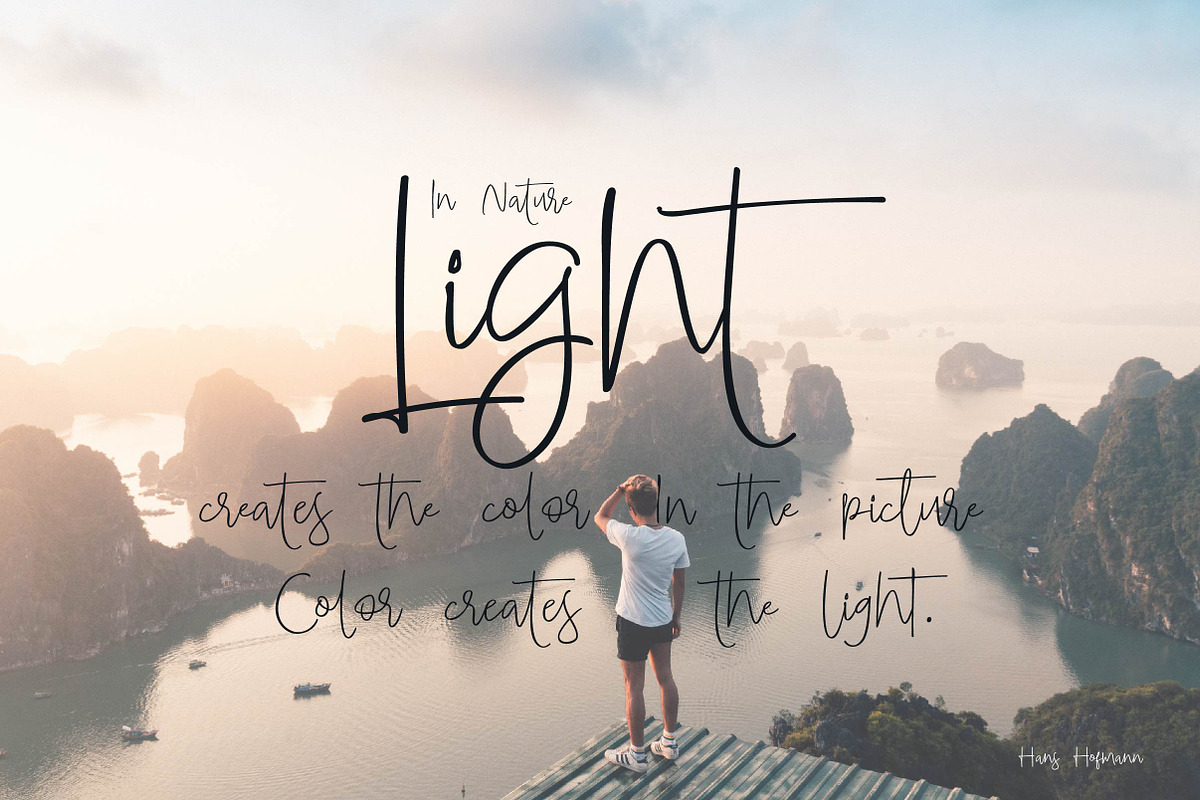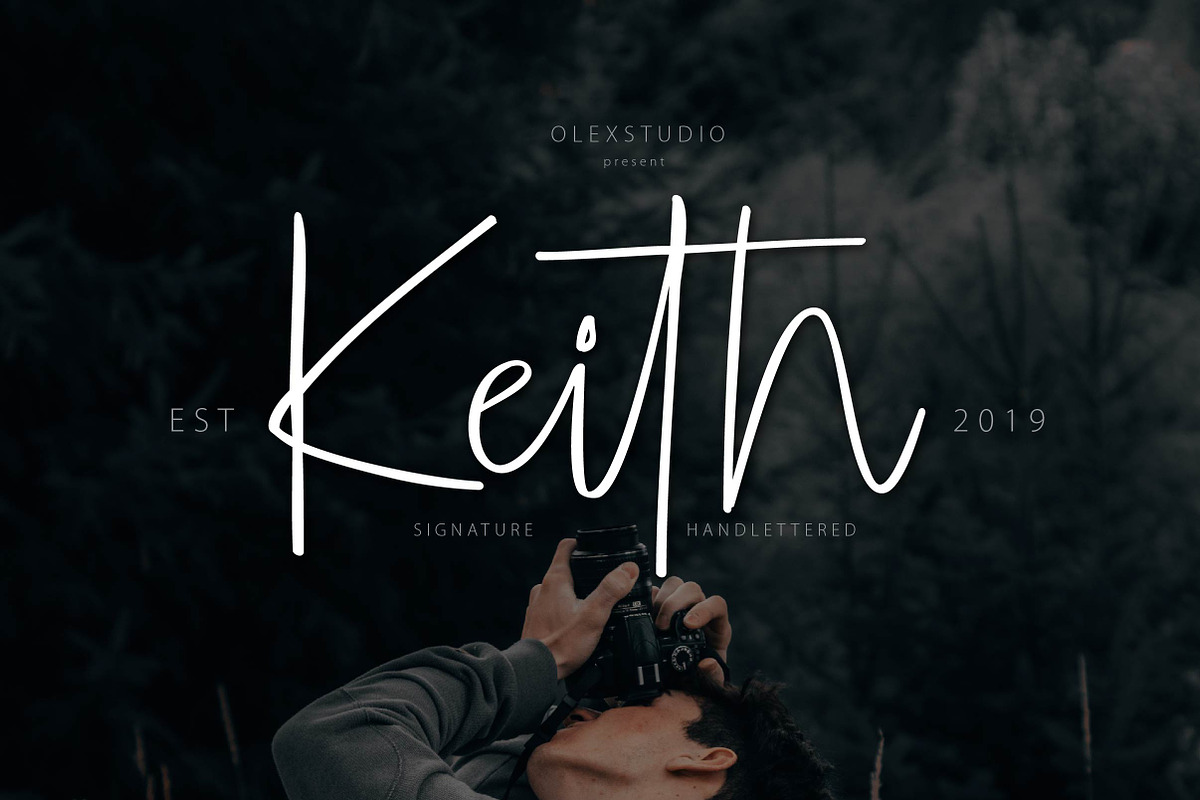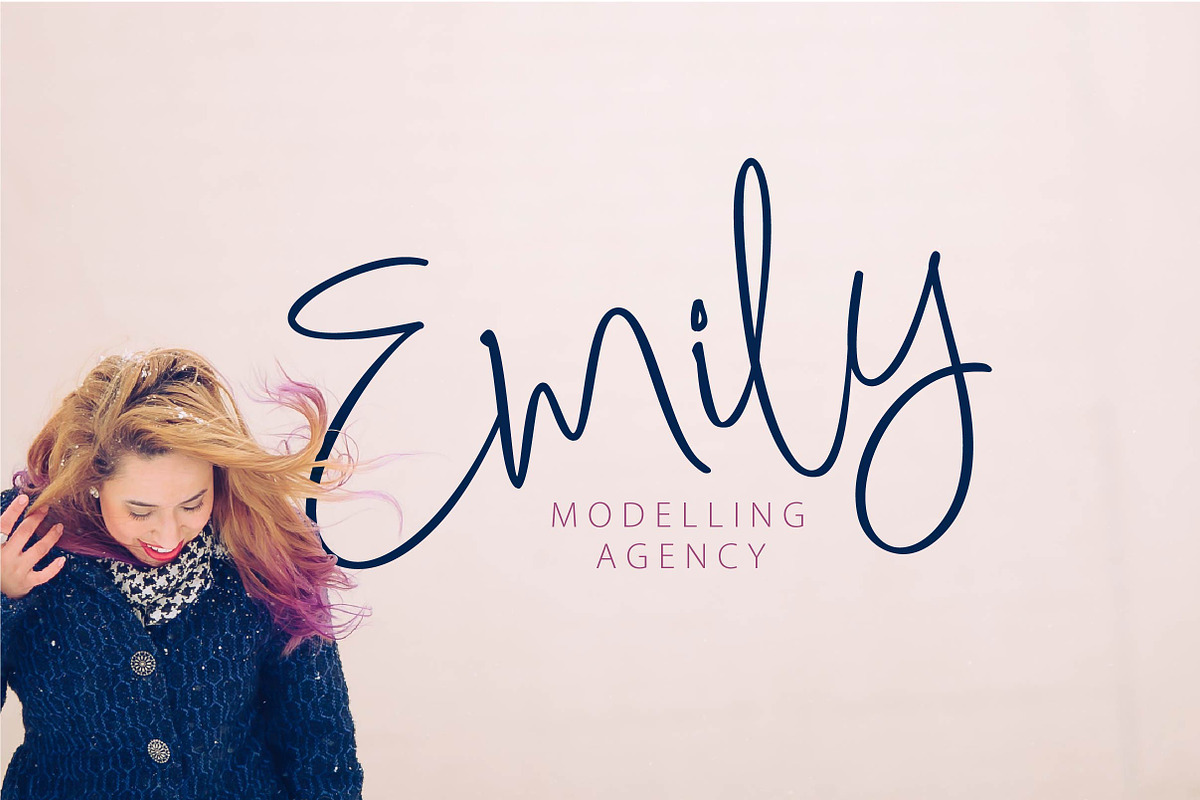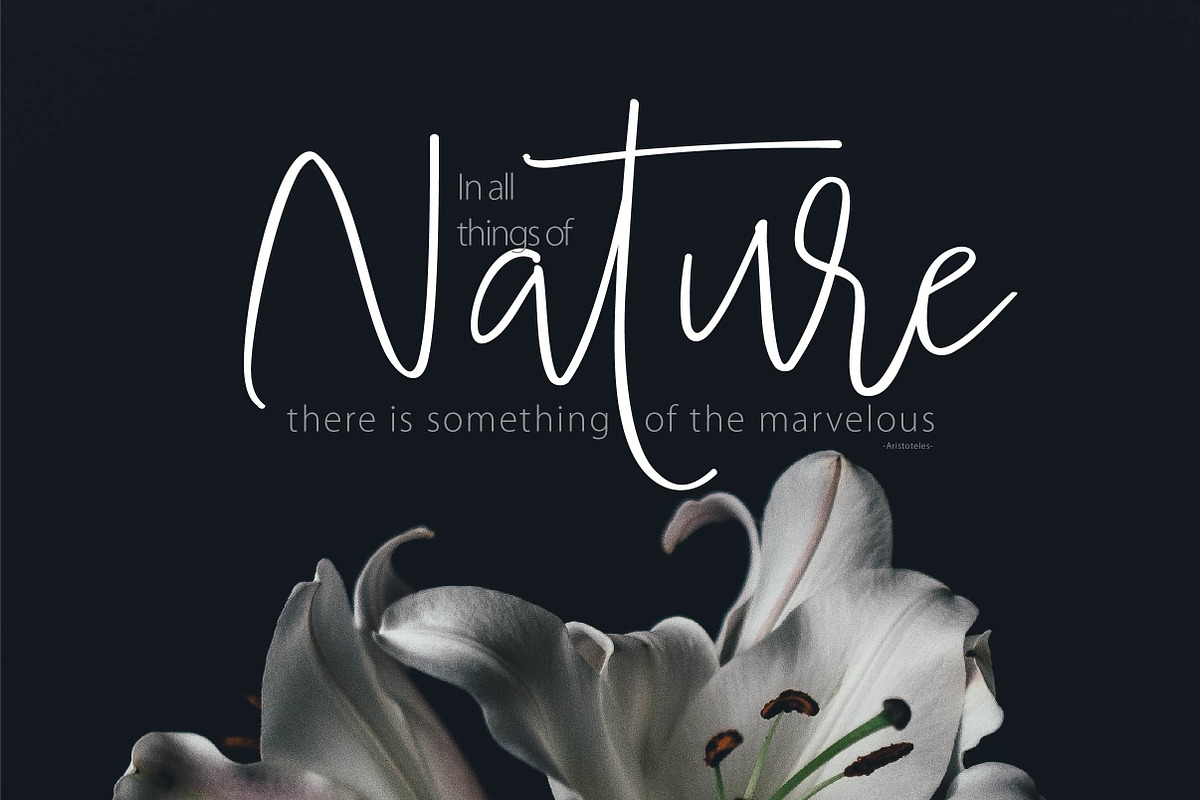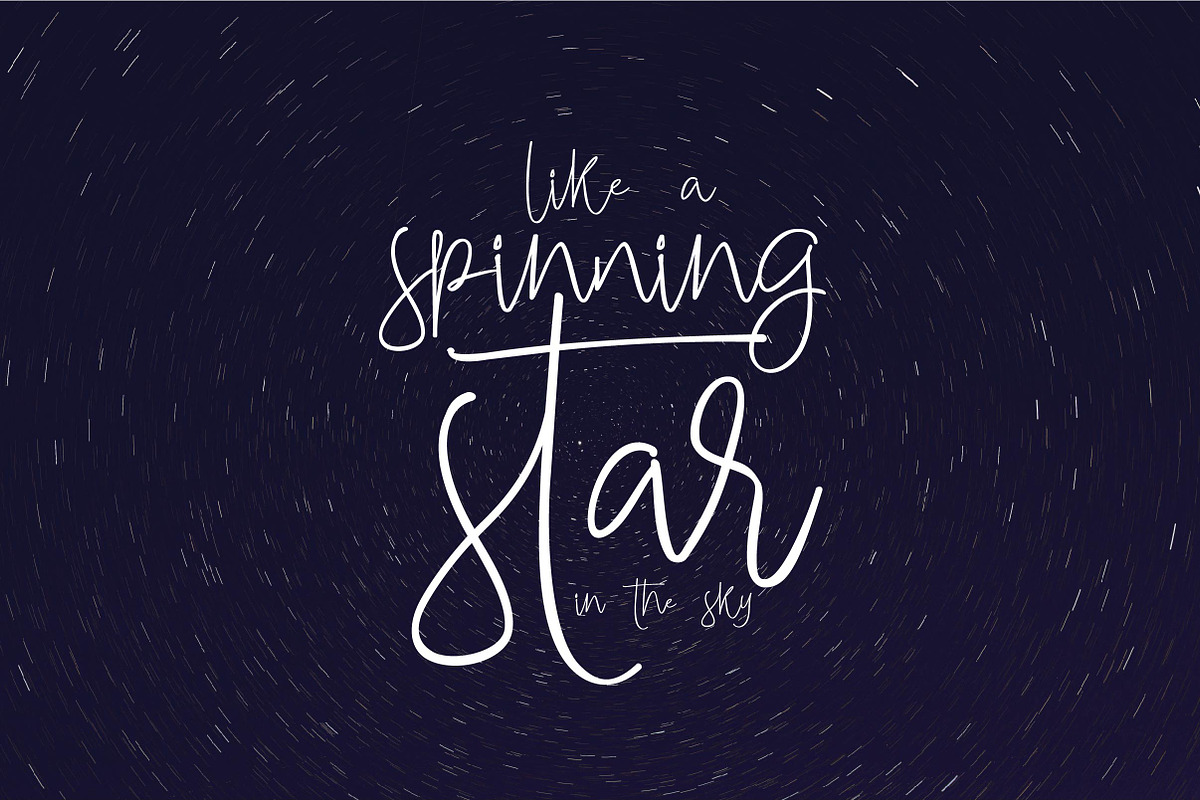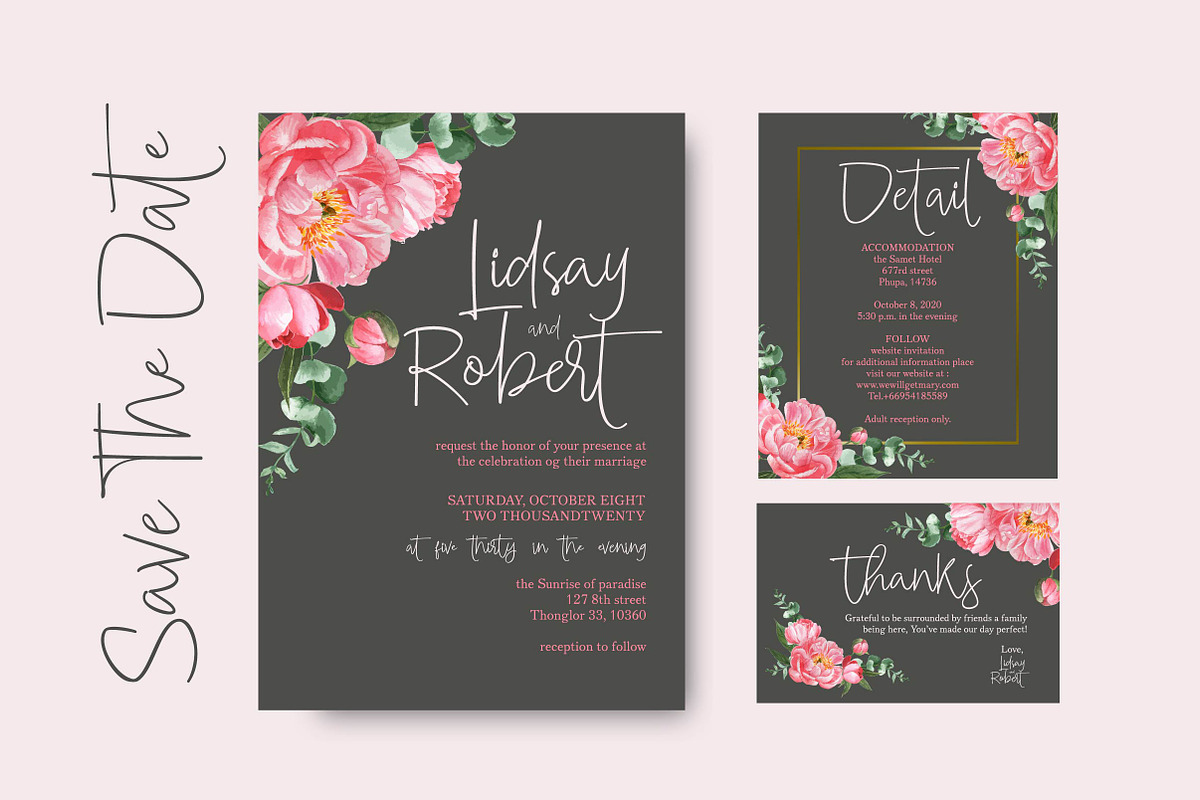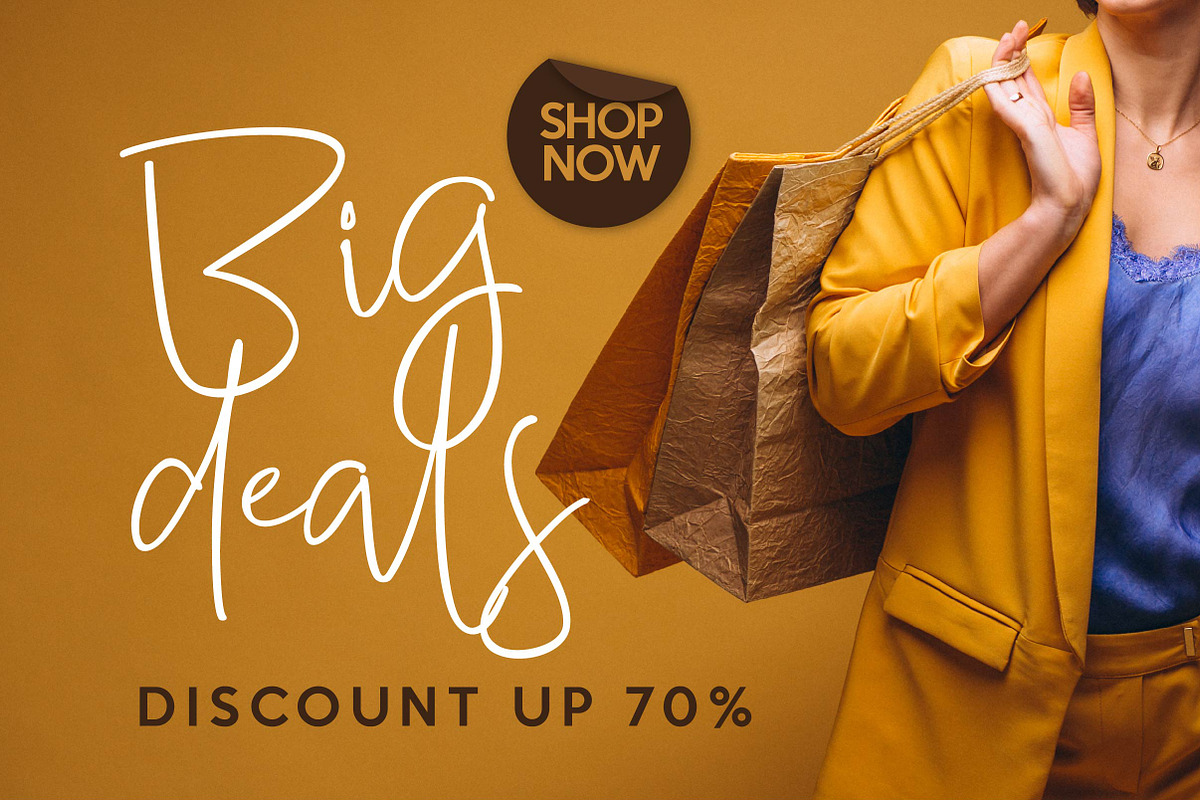
KEITH signature font
KEITH signature is a beautiful signature font, This Font will look gorgeous on all your designs, invitation, book, branding materials, logo's, t-shirt, poster and all project design other.
Why KEITH signature font is worth a look
KEITH signature font by Olexstudio fits naturally into Branding, posters, packaging, typography.